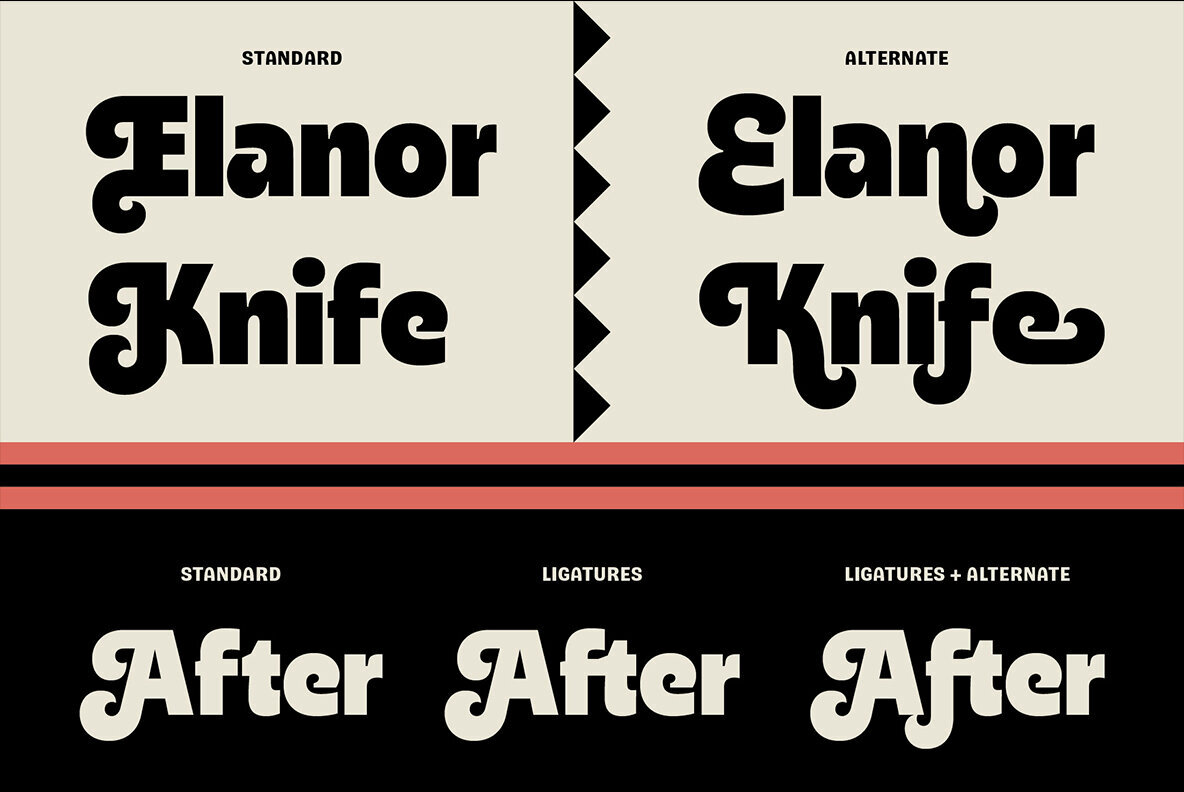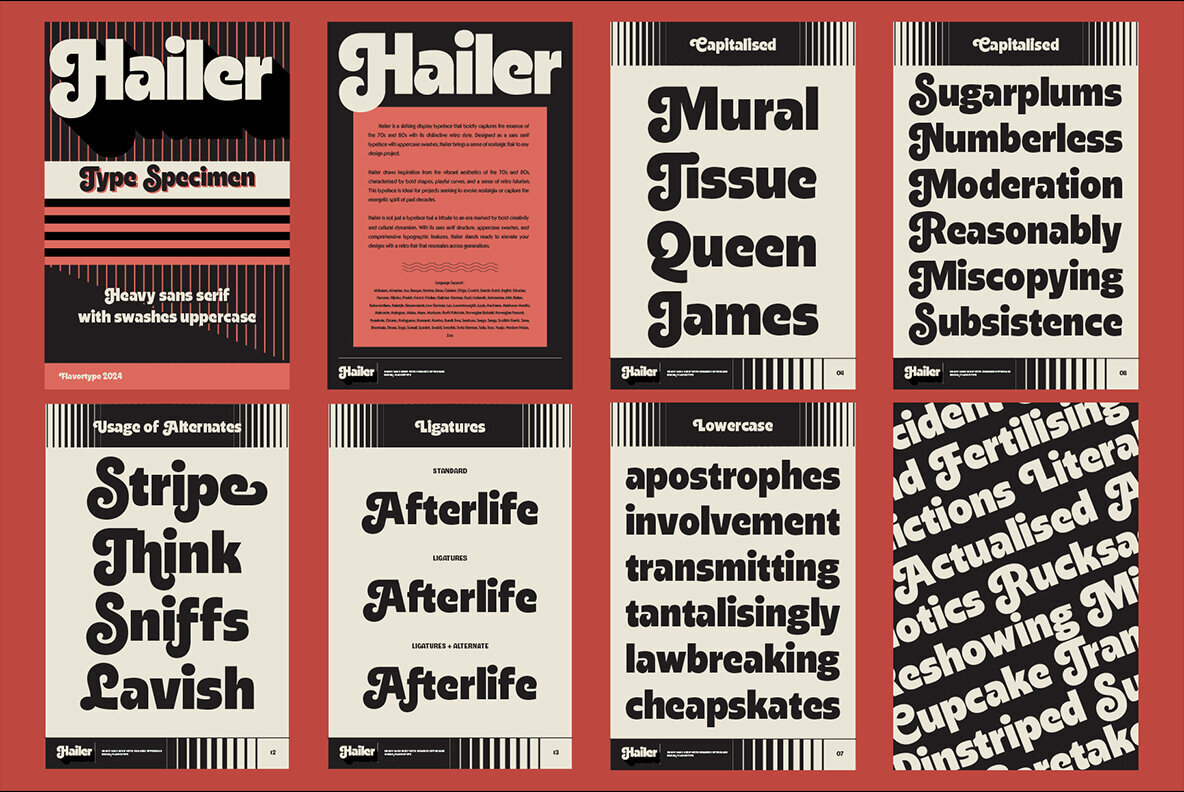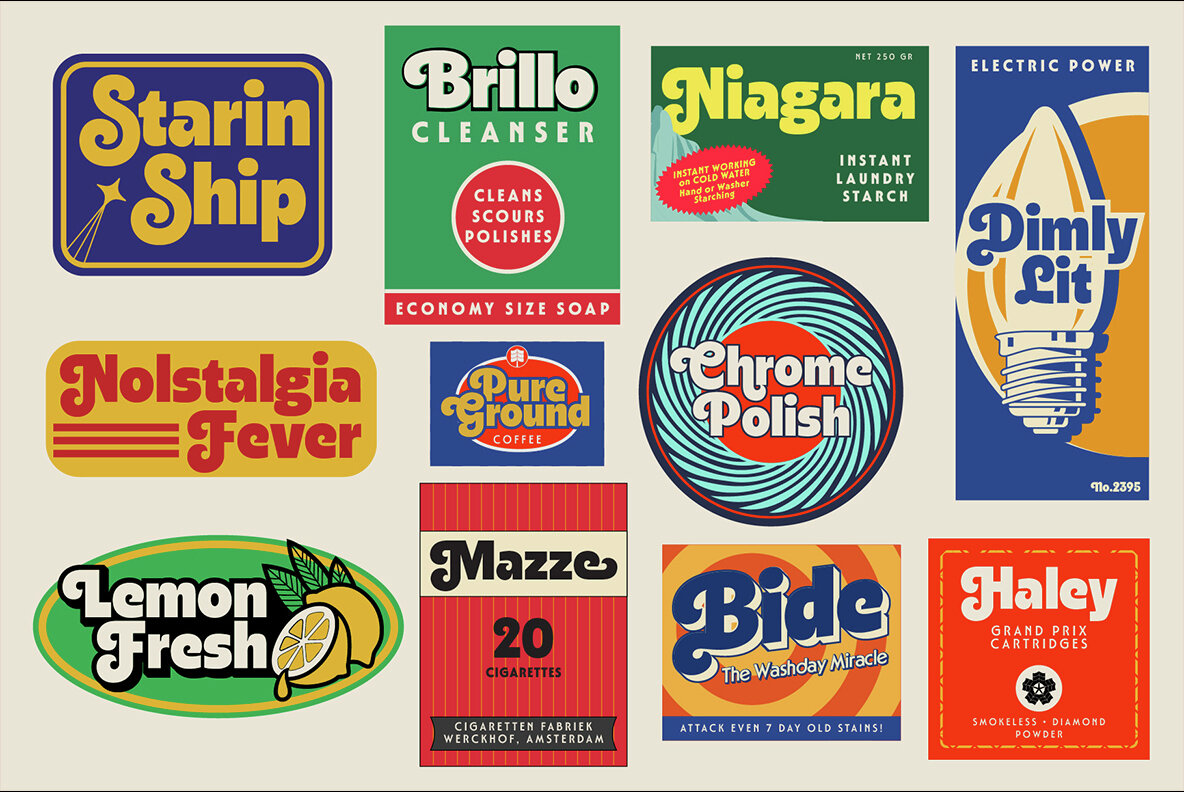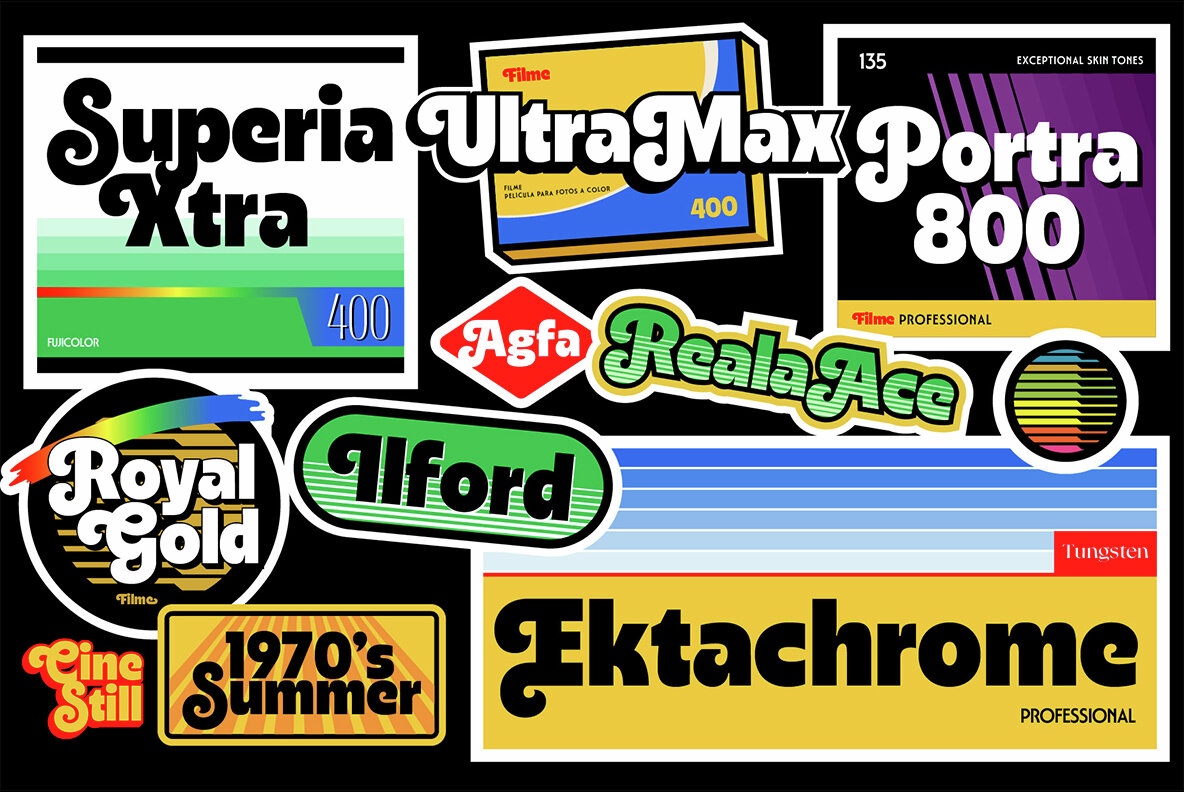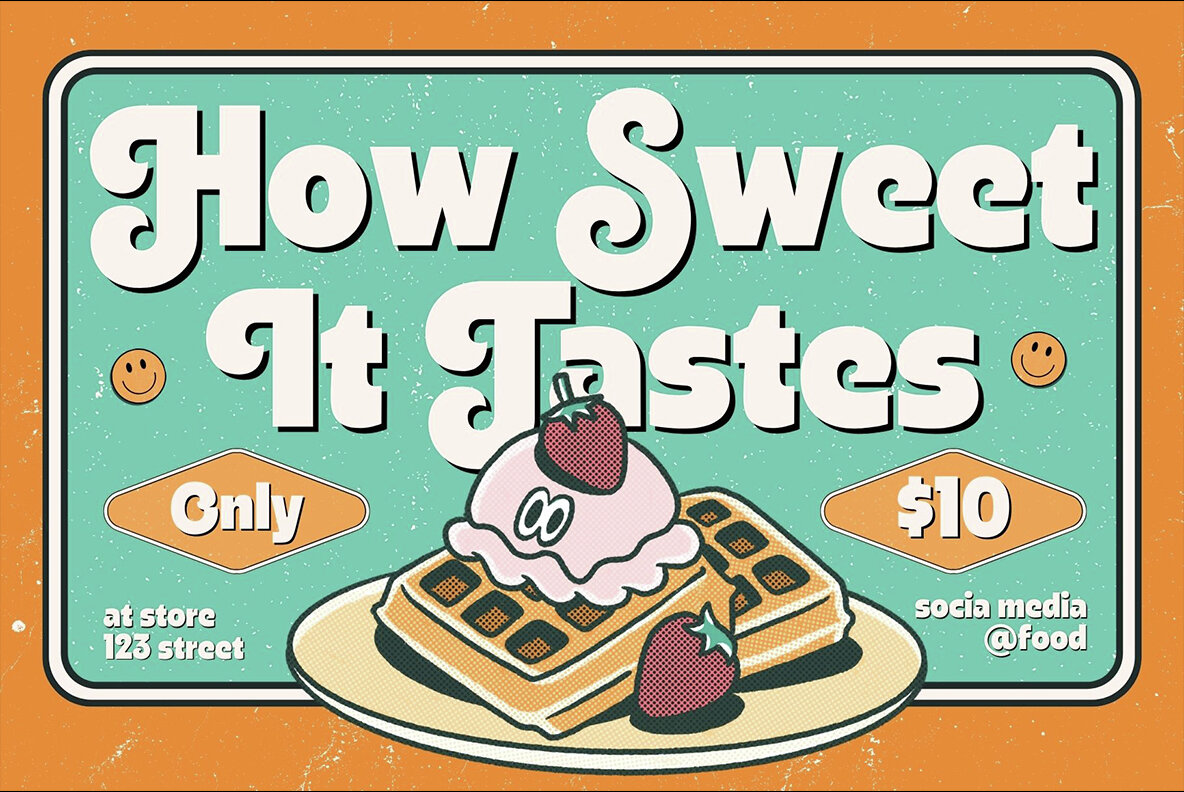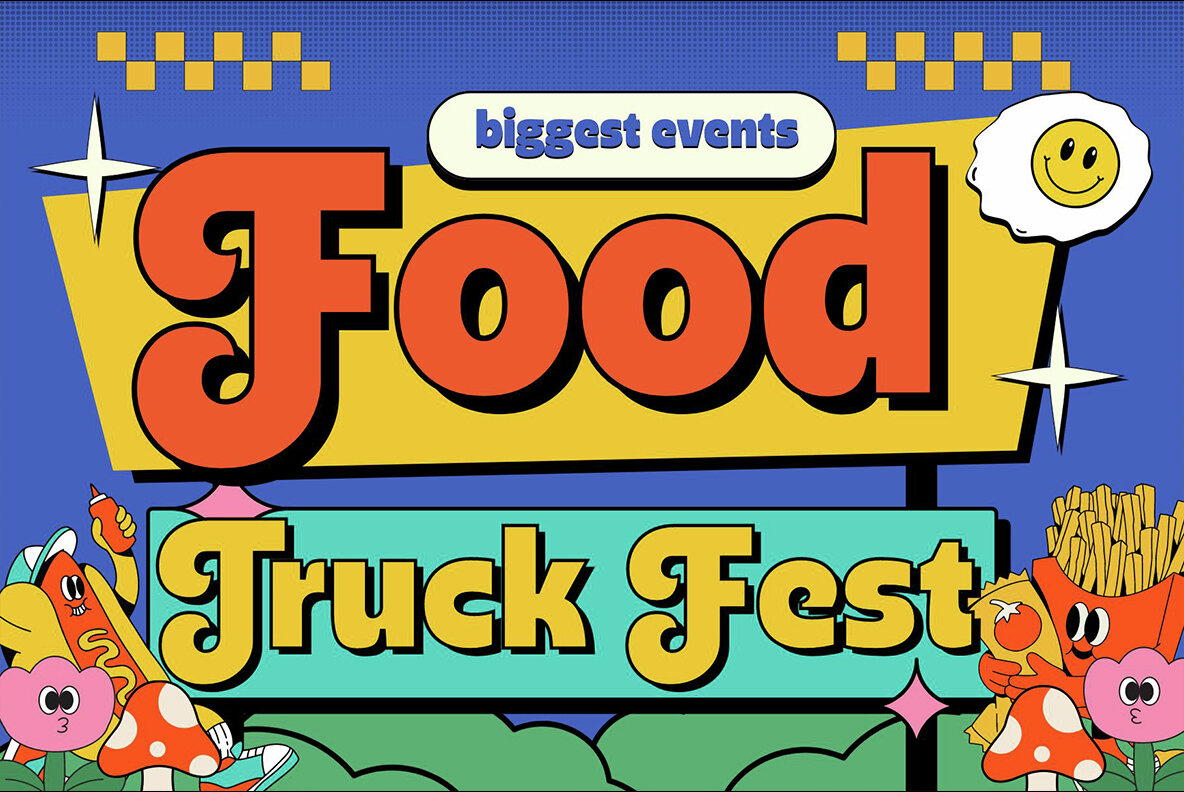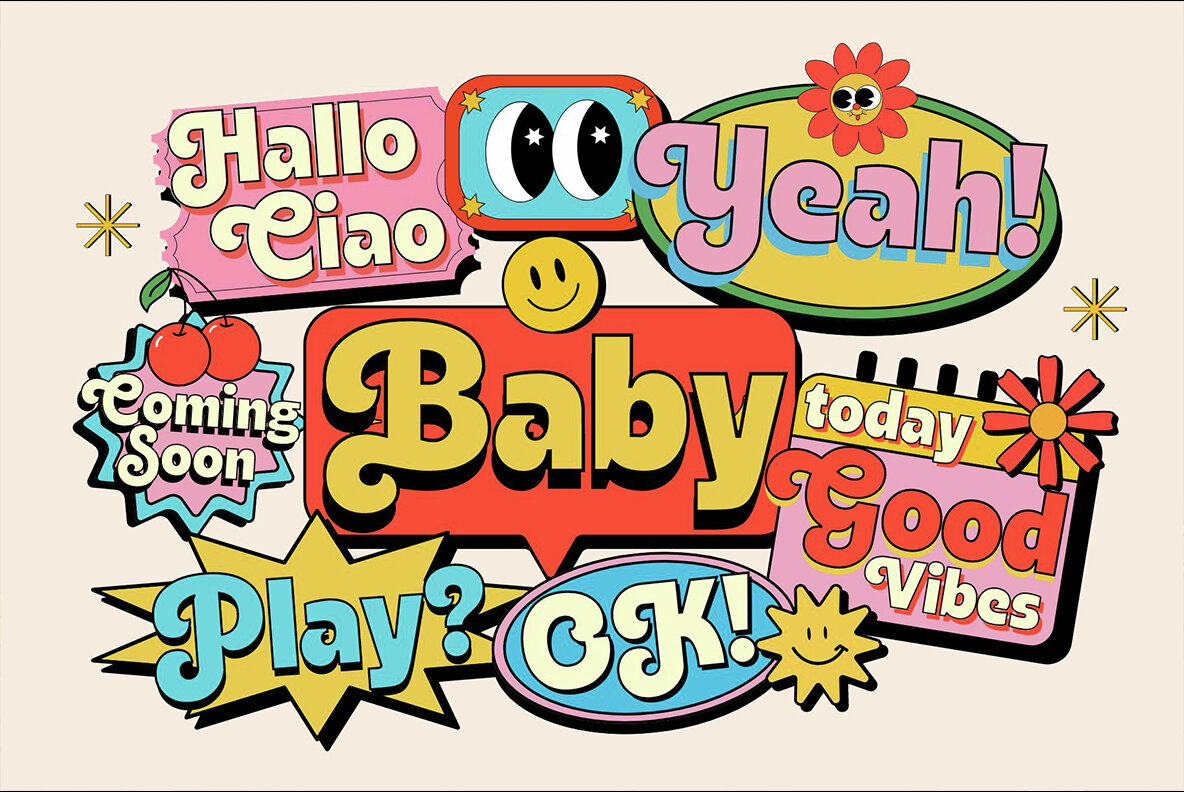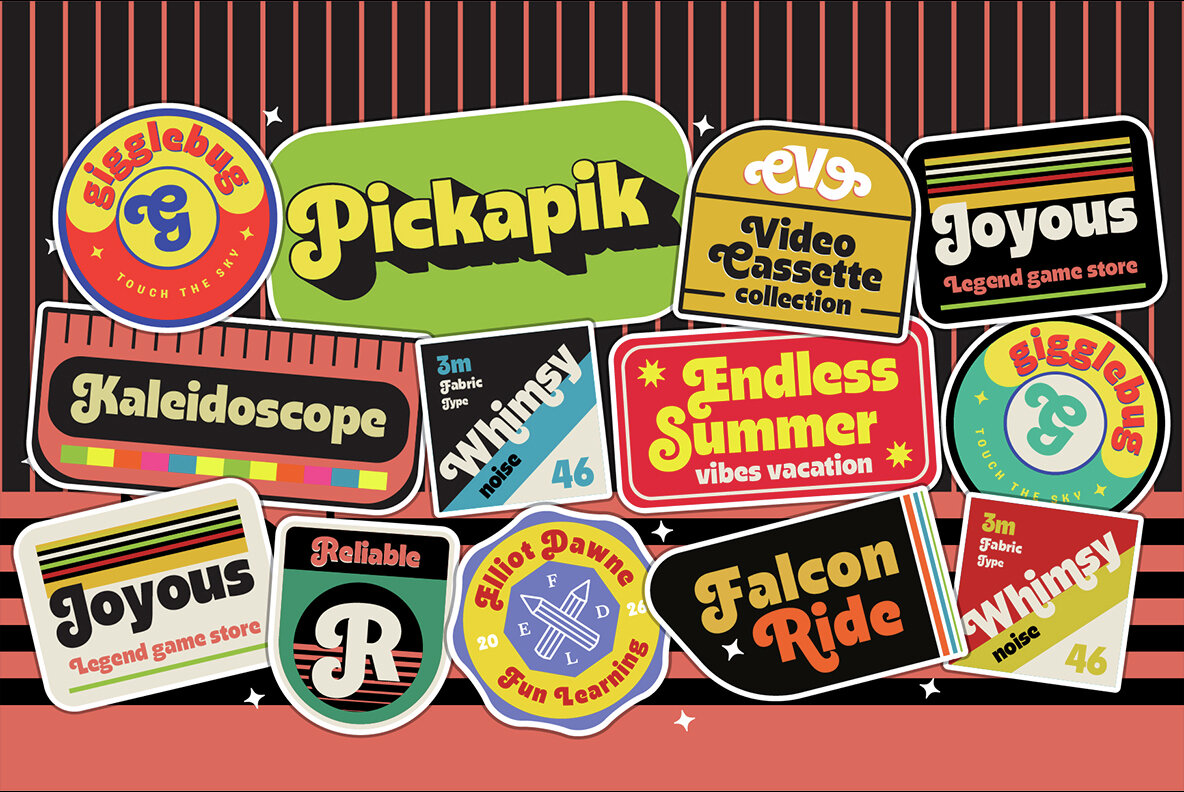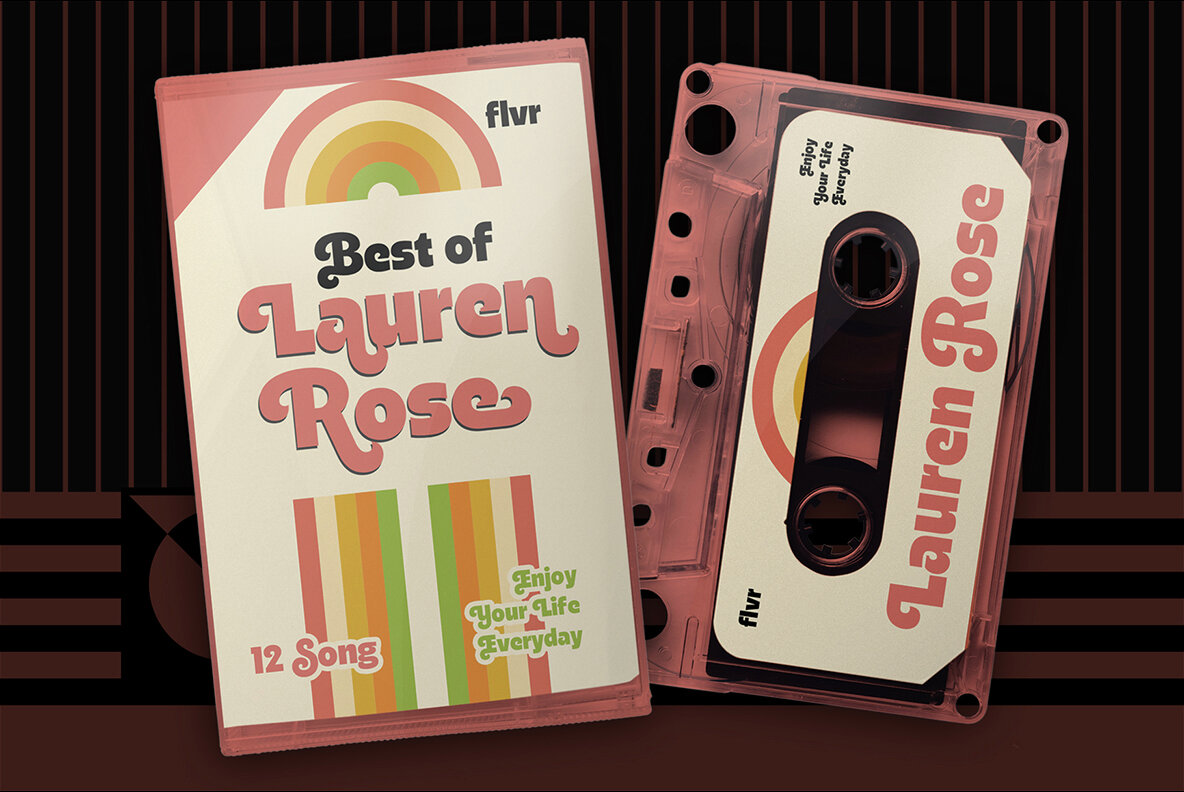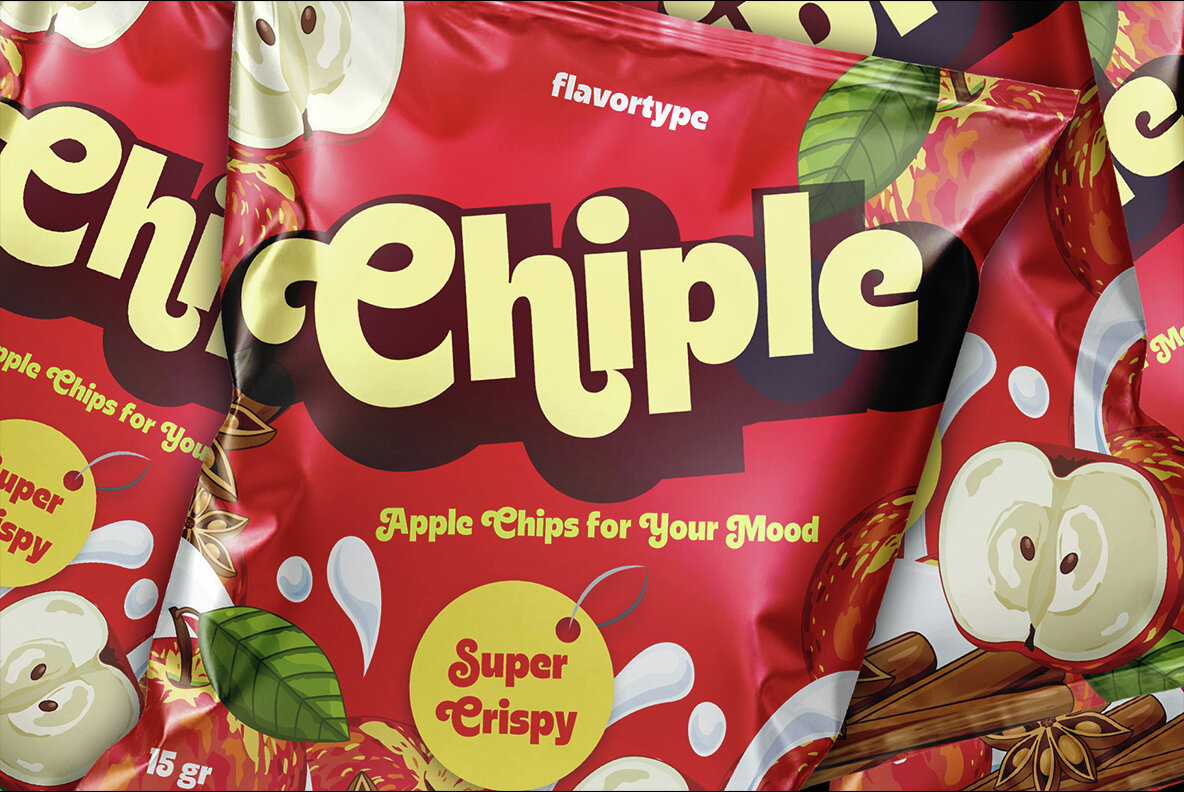
Hailer Font
Hailer Regular
Hailer is a striking display typeface that boldly captures the essence of the 70s and 80s with its distinctive retro style. Designed as a sans serif type- face with uppercase swashes, Hailer brings a sense of nostalgic flair to any design project. Hailer draws inspiration from the vibrant aesthetics of the 70s and 80s, charac- terized by bold shapes, playful curves, and a sense of retro futurism. This type- face is ideal for projects seeking to evoke nostalgia or capture the energetic spirit of past decades. Hailer is not just a typeface but a tribute to an era marked by bold creativity and cultural dynamism. With its sans serif structure, uppercase swashes, and comprehensive typographic features, Hailer stands ready to elevate your de- signs with a retro flair that resonates across generations.